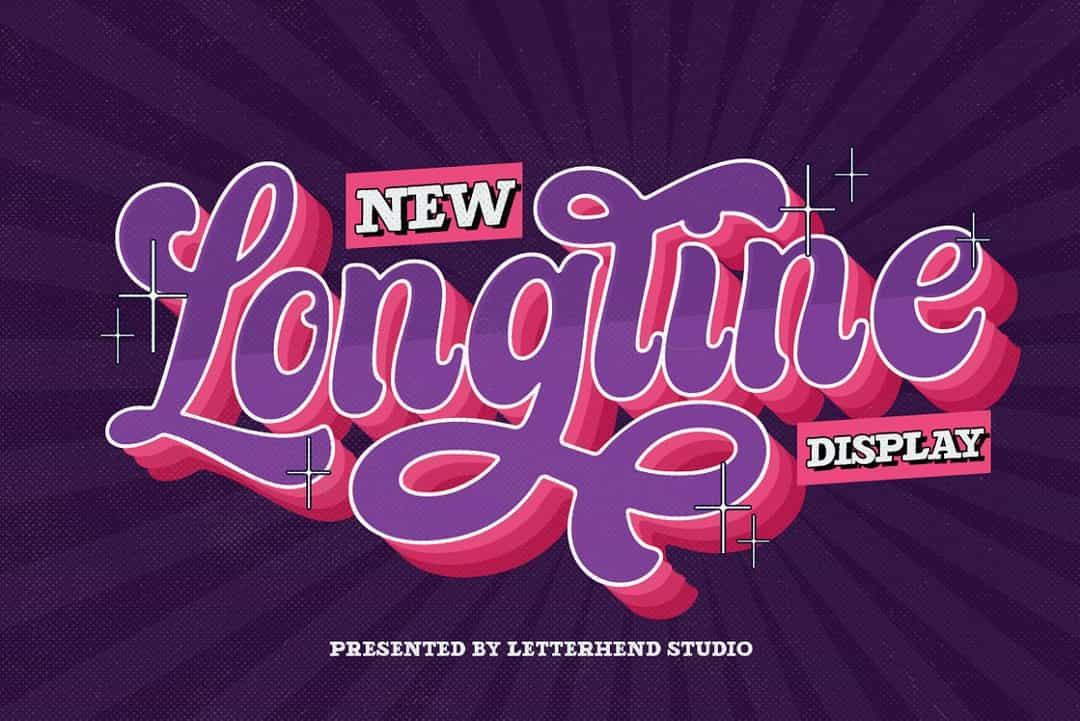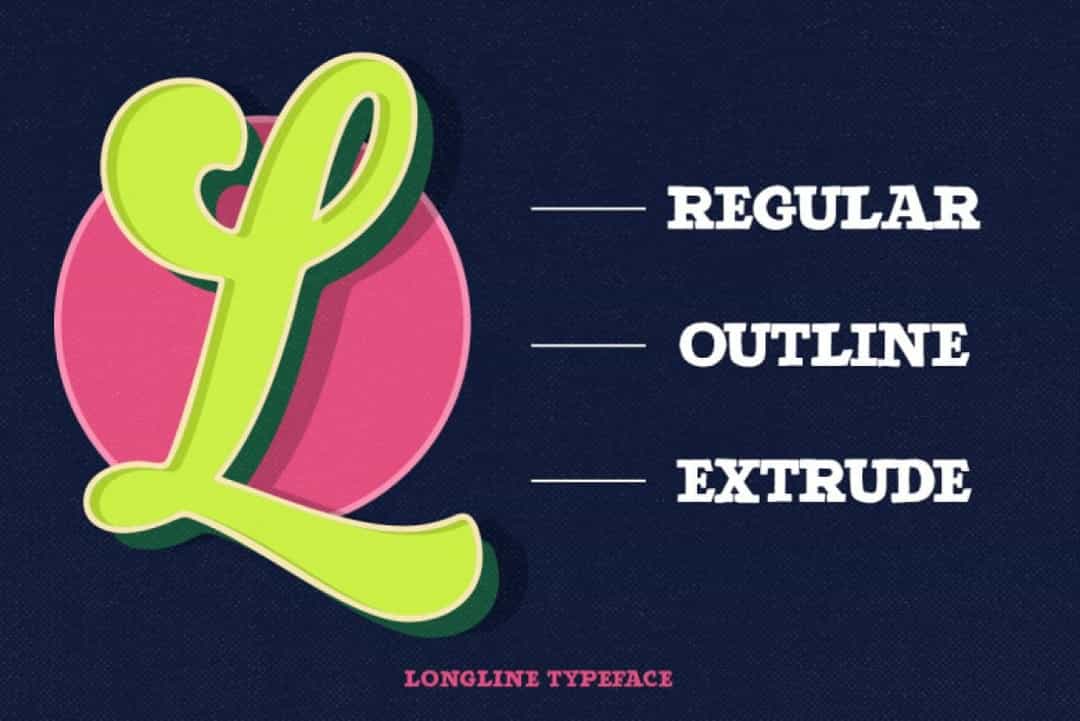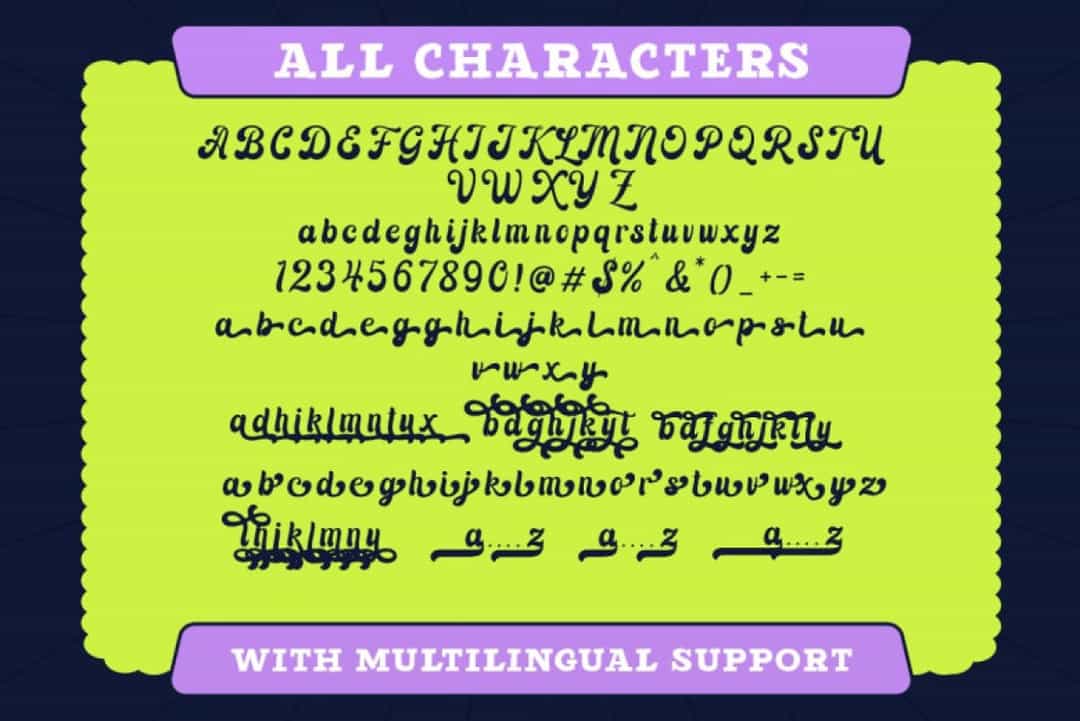
Longline, an eye-catching bold retro display font from the 1960s. Available as an extrude font for easy customization of retro designs. Perfect for logos and formal and semiformal uses like invitations labels logos magazines books greeting wedding cards packaging fashion stationary books novellas labels labels or any form of advertisement.